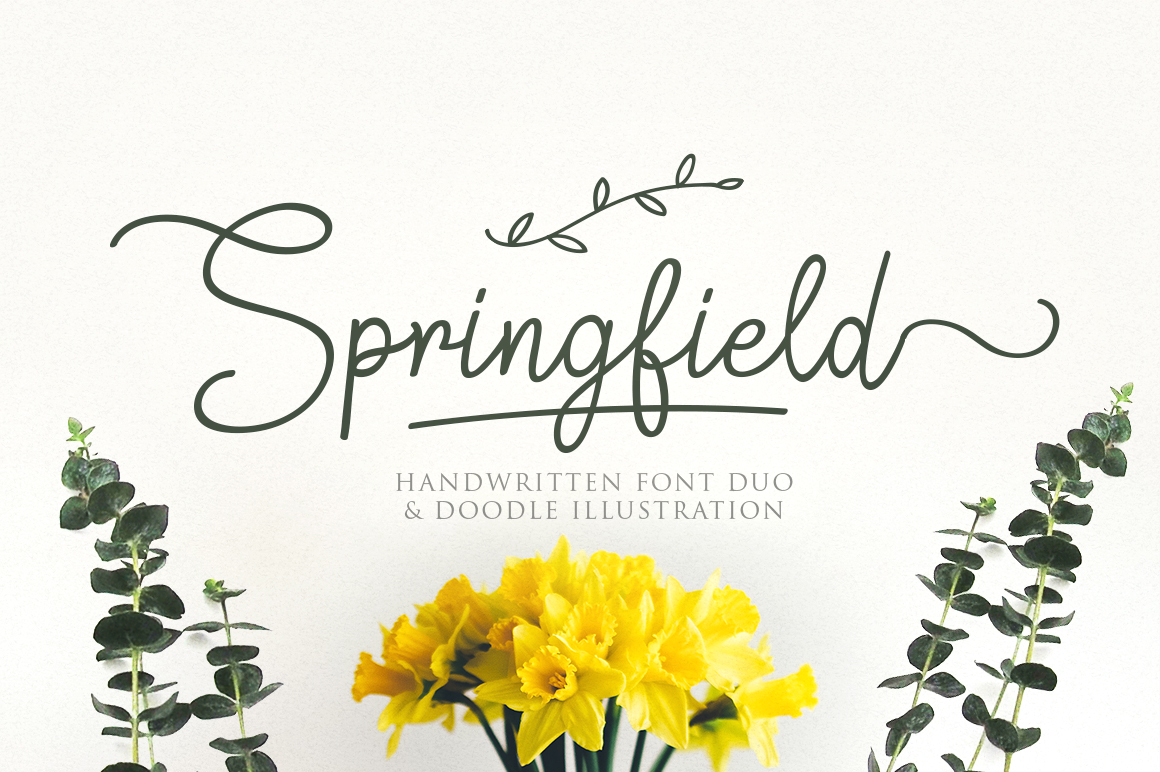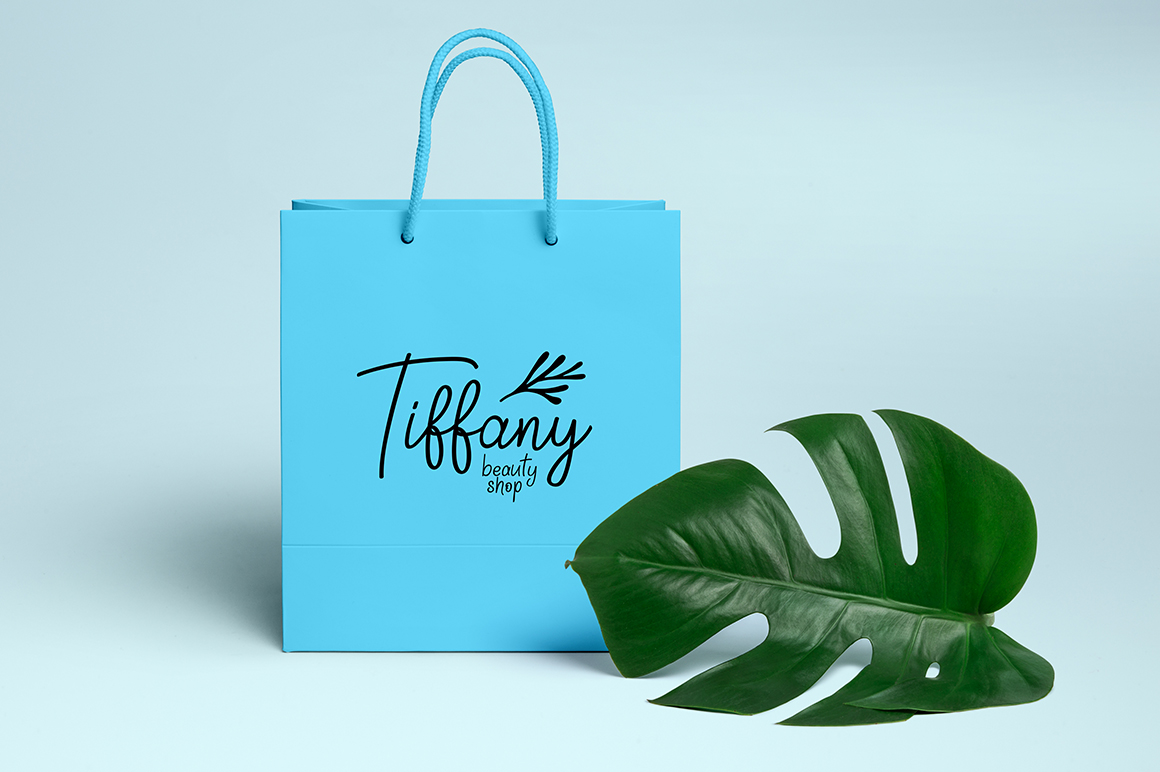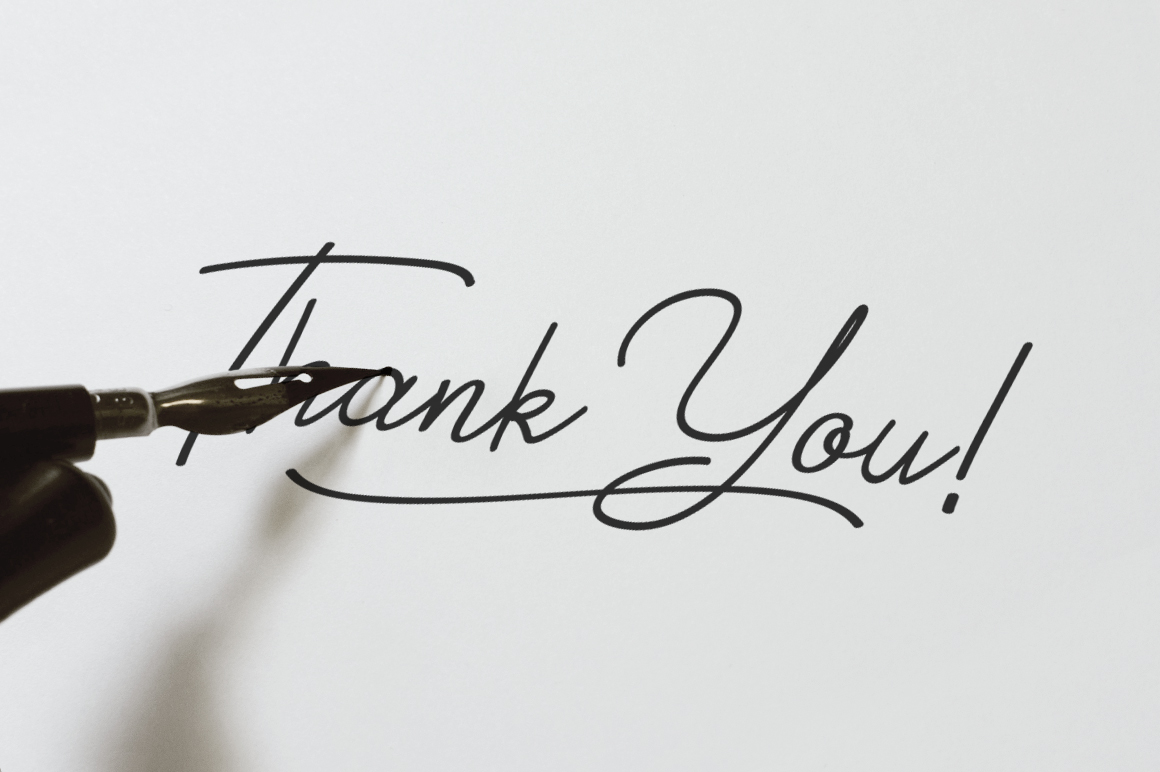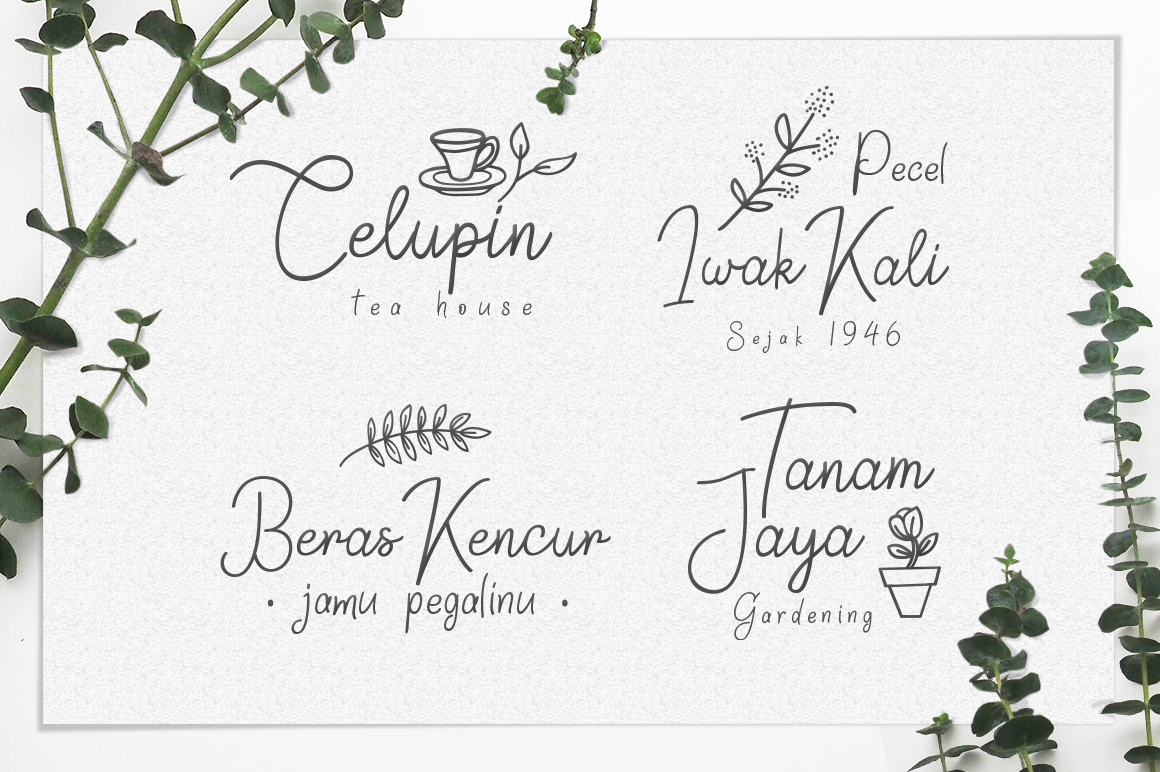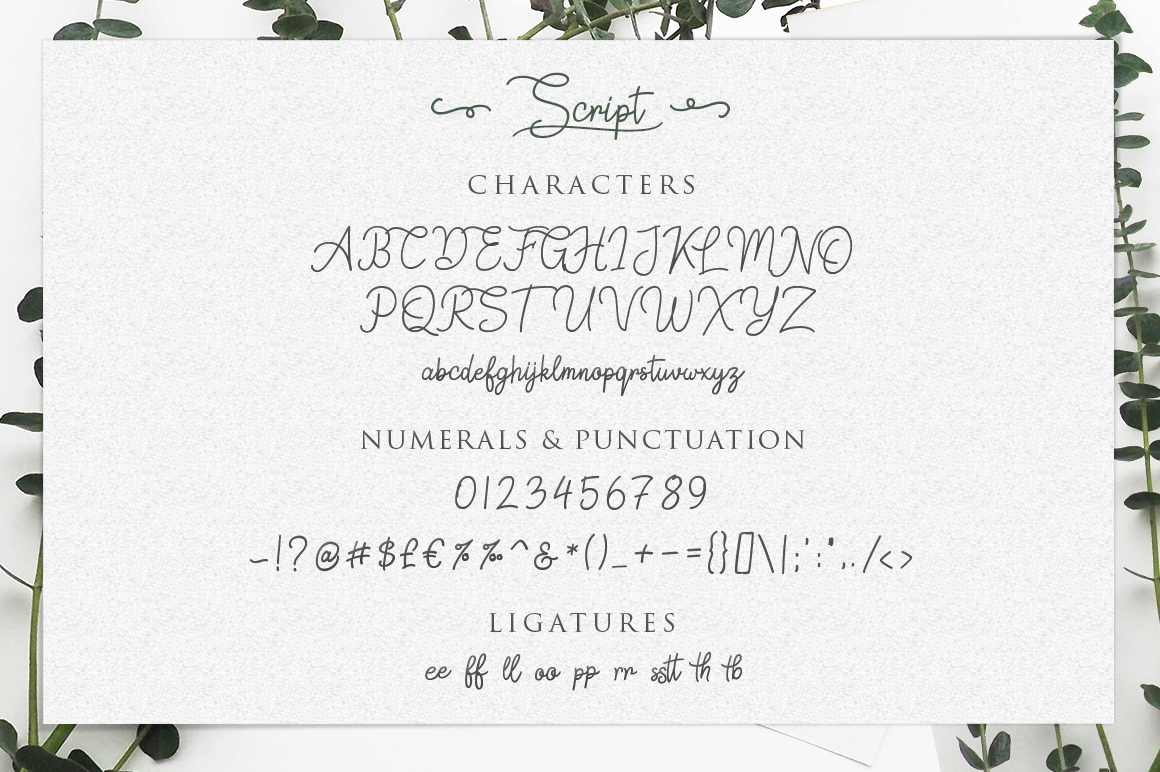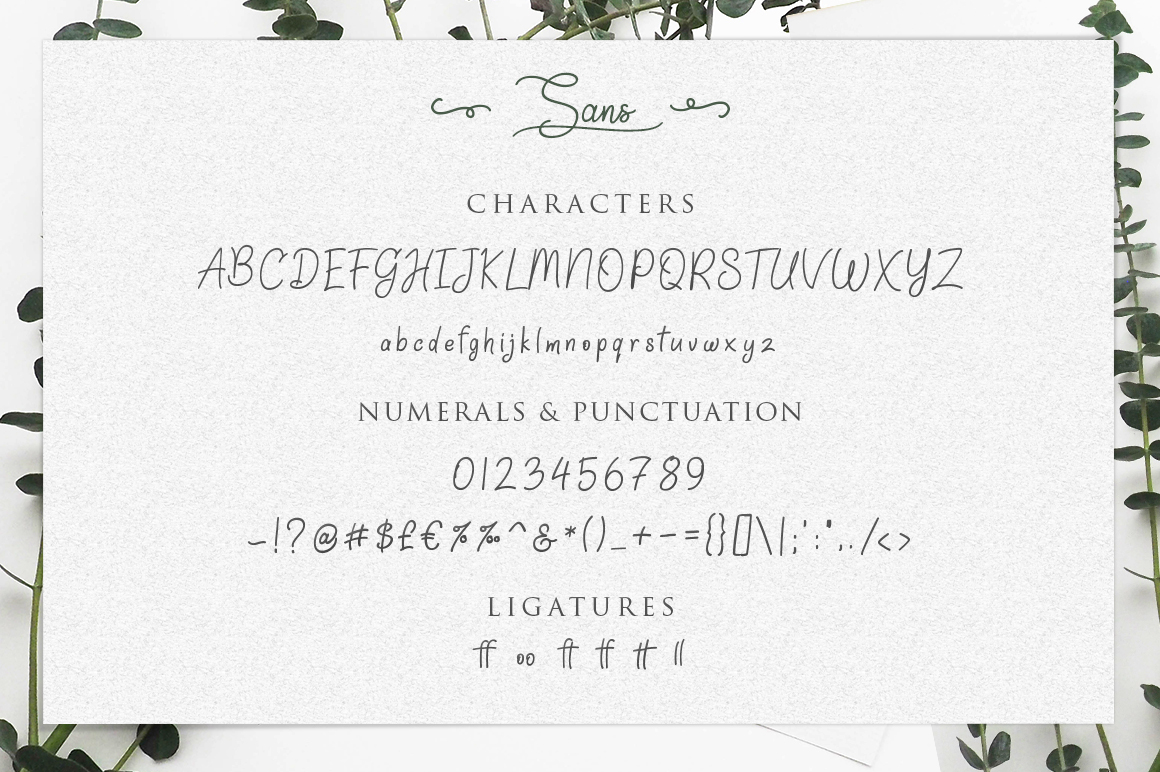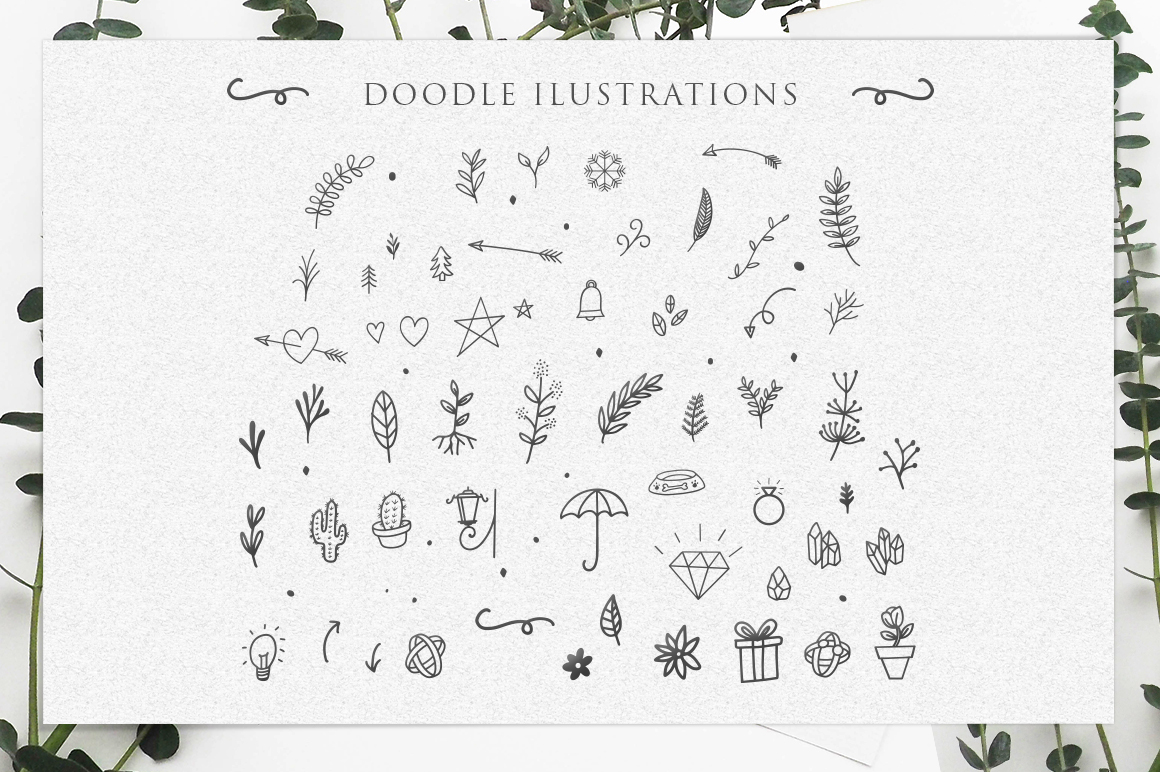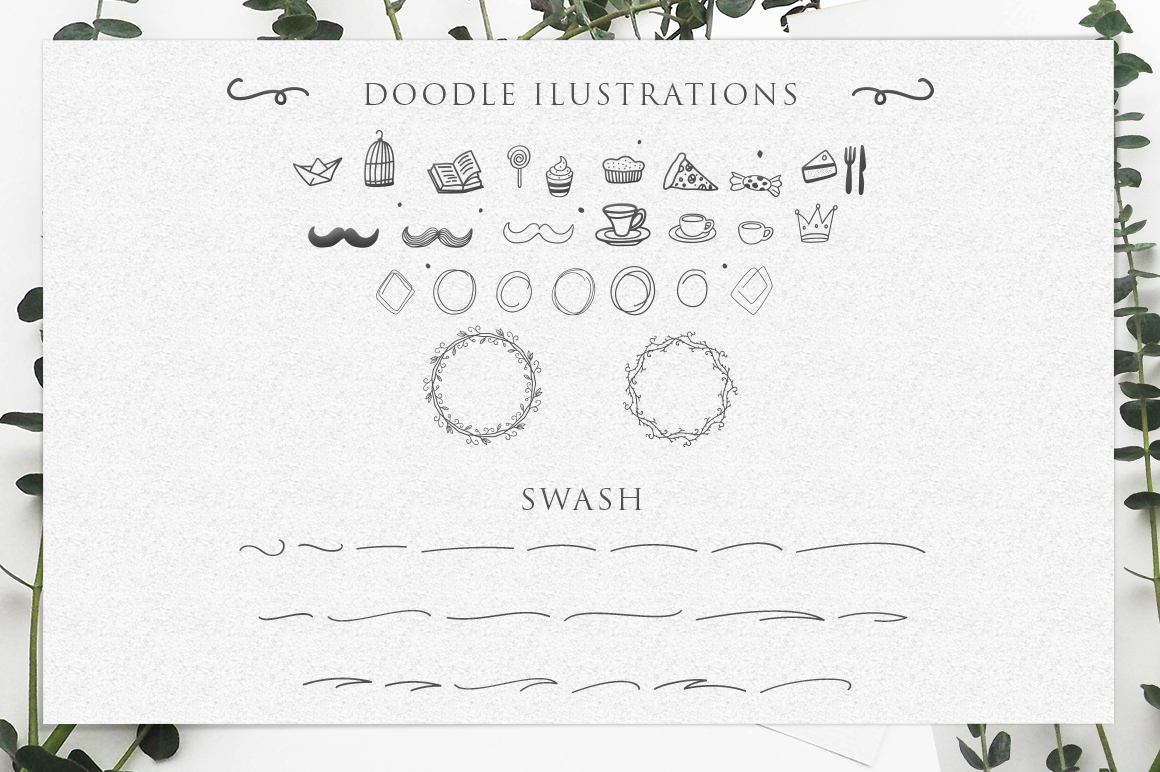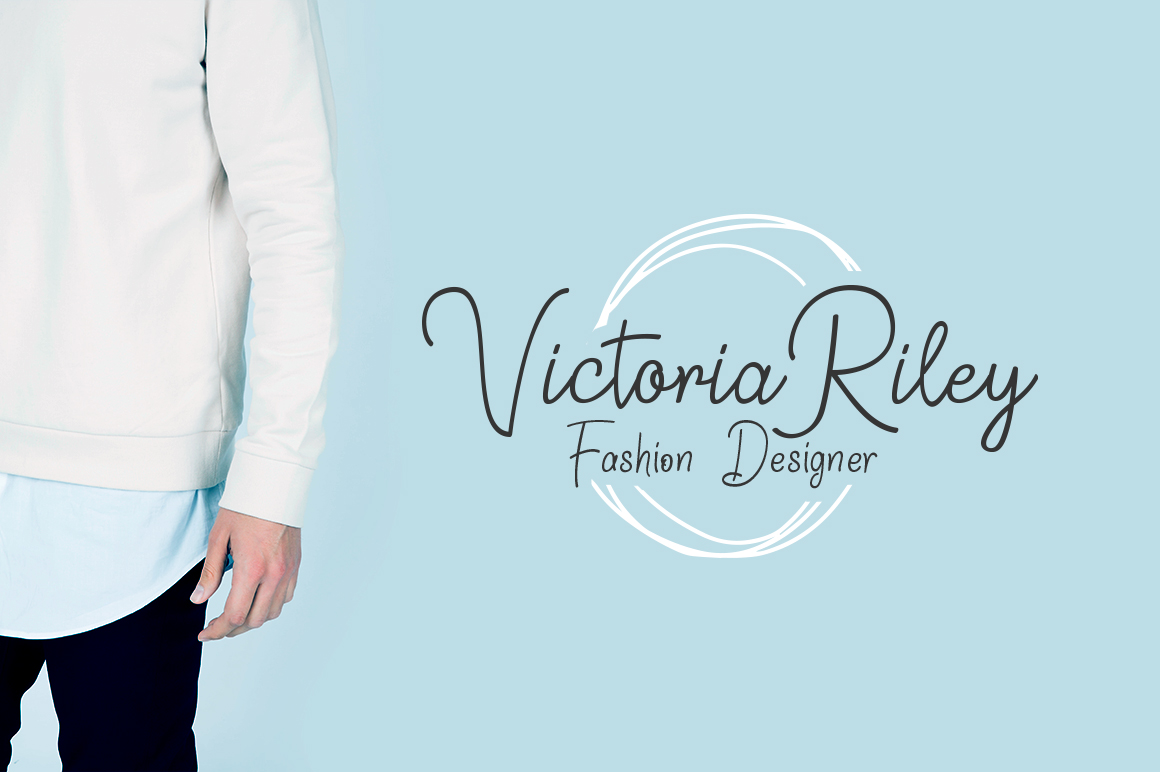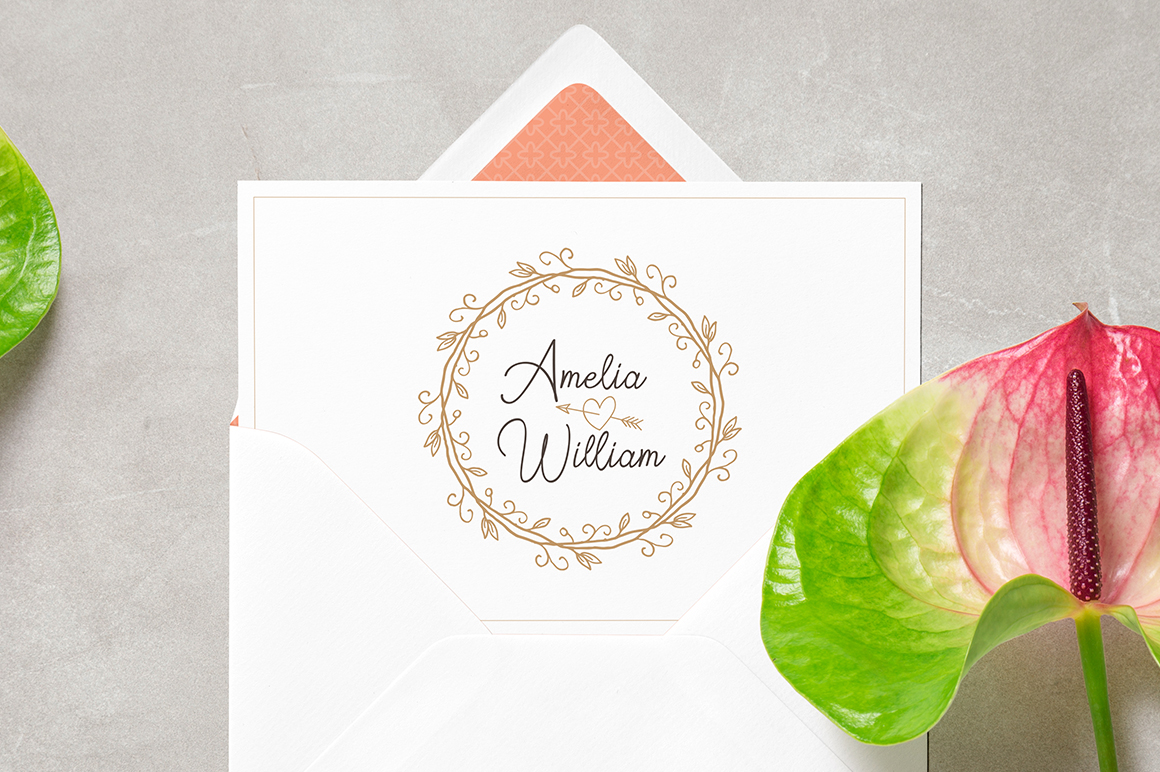
Springfield Font
About Springfield Font
Springfield is a perfectly craft font duo, handily made with a set of 20 complimentary doodles. This font allows you to create beautiful typographic designs in an instant!